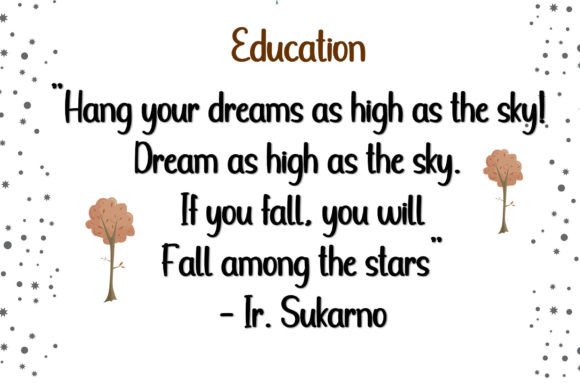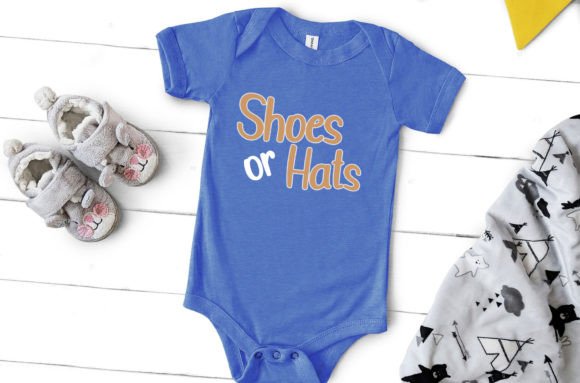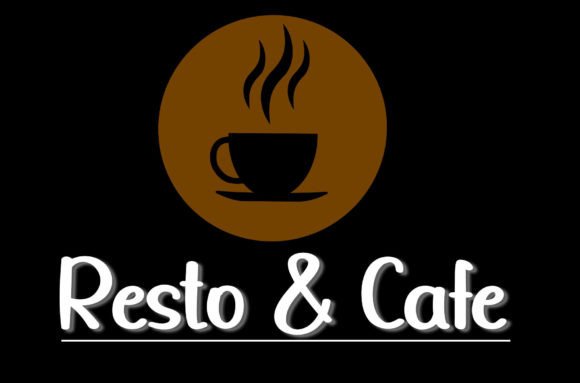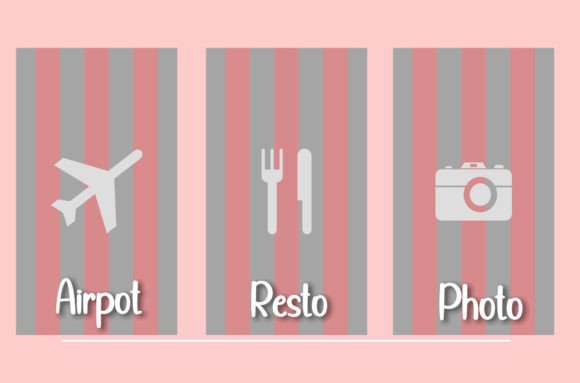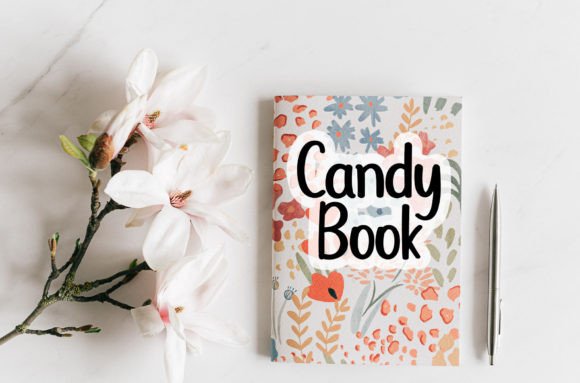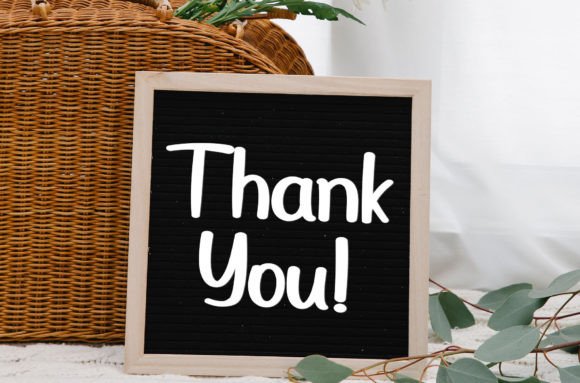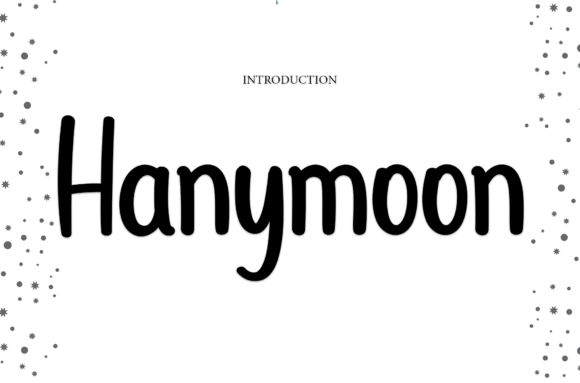
Discover the Elegance of Hanymoon Font: A Smooth and Versatile Handwritten Font
Are you a designer or crafter looking for a font that exudes elegance and sophistication? Look no further than Hanymoon Font, a smooth and elegant handwritten font that is sure to capture your heart. With its distinct and balanced letters, Hanymoon Font is a masterpiece that can elevate your designs to new heights.
The Characteristics of Hanymoon Font
Hanymoon Font is a handwritten font that boasts a smooth and flowing style, making it perfect for a wide range of design applications. Its distinct and balanced letters are carefully crafted to create a sense of harmony and elegance, making it ideal for projects that require a touch of sophistication.
One of the standout features of Hanymoon Font is its versatility. Whether you’re designing a wedding invitation, a branding campaign, or a social media graphic, this font can adapt to any style or theme. Its incredibly versatile style makes it easy to pair with other fonts, colors, and design elements, allowing you to create spectacular designs that showcase your creativity.
The Benefits of Using Hanymoon Font
So, why should you choose Hanymoon Font for your next design project? Here are just a few benefits of using this amazing font:
- Elegance and Sophistication: Hanymoon Font exudes elegance and sophistication, making it perfect for high-end designs, wedding invitations, and luxury brands.
- Versatility: This font can be used for a wide range of design applications, from digital graphics to print materials.
- Easy to Read: Hanymoon Font is clear and easy to read, making it perfect for body text, headings, and titles.
- Unique and Distinctive: With its smooth and flowing style, Hanymoon Font is sure to stand out from the crowd and make your designs memorable.
How to Use Hanymoon Font in Your Designs
Hanymoon Font is easy to use and can be incorporated into your designs in a variety of ways. Here are a few ideas to get you started:
- Wedding Invitations: Use Hanymoon Font to create beautiful and elegant wedding invitations that set the tone for the big day.
- Branding and Packaging: This font is perfect for luxury brands, high-end products, and premium services.
- Social Media Graphics: Use Hanymoon Font to create eye-catching social media graphics that showcase your brand’s personality and style.
- Stationery and Print Materials: This font is ideal for business cards, letterheads, and other print materials that require a touch of elegance.
Tips and Tricks for Getting the Most Out of Hanymoon Font
To get the most out of Hanymoon Font, here are a few tips and tricks to keep in mind:
- Experiment with Font Sizes: Hanymoon Font looks great in a variety of font sizes, so don’t be afraid to experiment and find the perfect size for your design.
- Pair with Other Fonts: This font pairs well with other serif and sans-serif fonts, so try combining it with other fonts to create a unique and interesting look.
- Use it for Headings and Titles: Hanymoon Font is perfect for headings and titles, so use it to add a touch of elegance and sophistication to your designs.
In conclusion, Hanymoon Font is a smooth and elegant handwritten font that is sure to capture your heart. With its distinct and balanced letters, incredibly versatile style, and ease of use, this font is perfect for designers and crafters looking to create spectacular designs. Whether you’re designing a wedding invitation, a branding campaign, or a social media graphic, Hanymoon Font is the perfect choice. So why wait? Fall in love with Hanymoon Font today and take your designs to new heights!